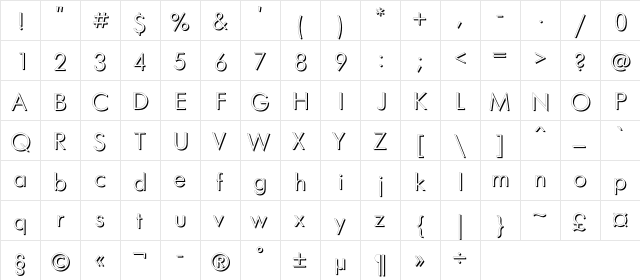
FuturisShadowC Regular
Design Context for FuturisShadowC Typeface
FuturisShadowC channels digital-age aesthetics through its sharp, structured letterforms — ideal for brands that want to signal innovation.
Pro Tip: Try FuturisShadowC with generous letter-spacing in UI labels and navigation — the geometric forms benefit from room to breathe.